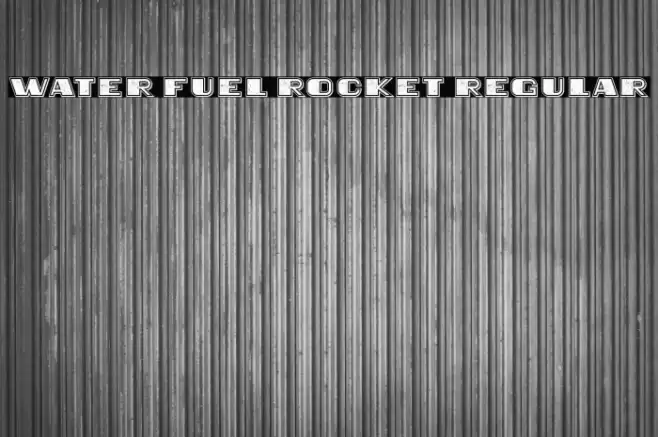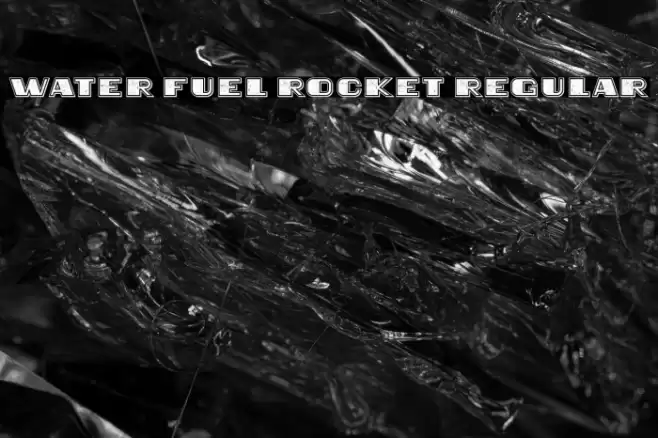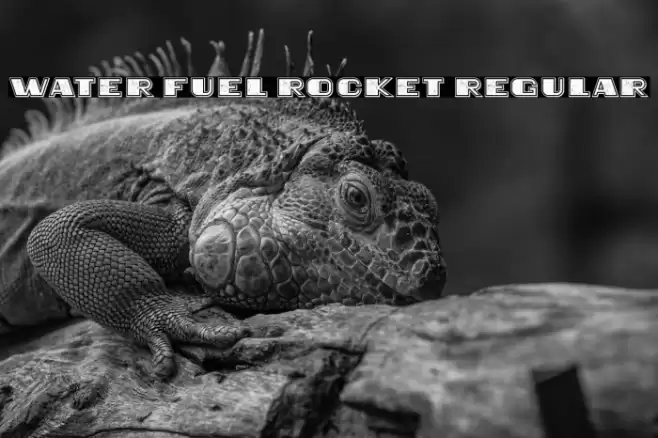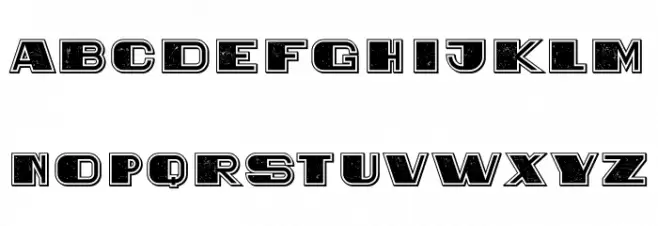
Water Fuel Rocket Regular Font
Water Fuel Rocket Regular Description
This font features a bold, industrial design with a distressed texture that gives it a rugged, vintage appearance. The characters are outlined with a thick border, creating a strong visual impact. The uppercase letters are uniform in height, with a geometric structure that emphasizes straight lines and sharp angles. The distressed effect adds a sense of age and wear, making it suitable for projects that require a retro or gritty aesthetic. The font's boldness and unique style make it stand out, perfect for eye-catching headlines or logos.
A bold, distressed font with an industrial, vintage look from Uncategorized fonts.
- Proposed Projects: Ideal for vintage-themed posters, logos, branding, and headlines that require a strong, industrial feel.
- Overall Style: Vintage